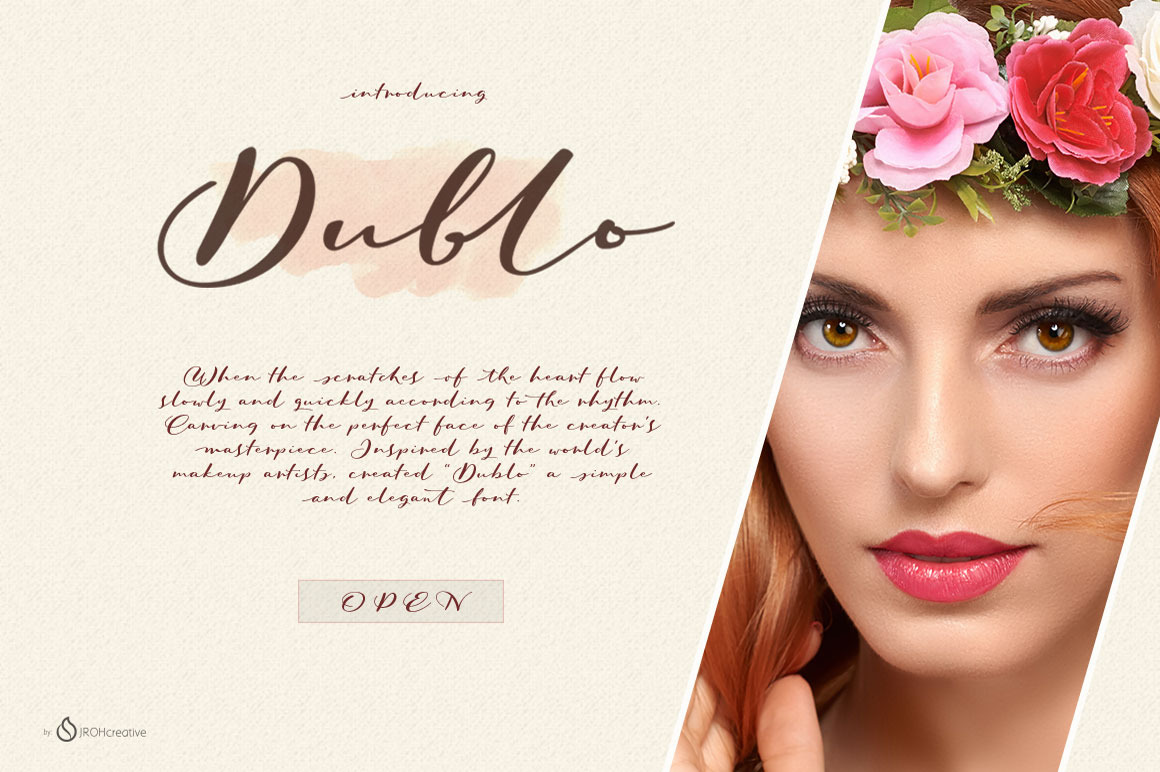
Dublo Script Font
Hi all....introduce my new font Dublo is a combination of fast and slow scratches, thin and thick lines make it look natural, classy and simple.
Dublo suitable for logos, advertisement, greeting cards, catalog, packaging design, watercolor based design, blog headers, or anything that need natural feeling to put on to.
The features is:
- Standard ligatures
- Contextual alternate
- Stylistic alternates